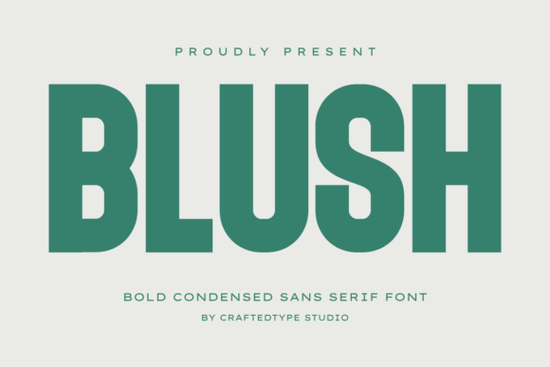
If you work in print on demand, graphic design, or crafting, you already know how much a single typeface can shape the feel of a project. The Blush font is a bold condensed sans serif built for heavy headers, branding, apparel layouts, and social media graphics. It combines tall, narrow geometric letterforms with clean vectors, making it a practical choice for both digital design software and cutting machines like Cricut and Silhouette.
What Makes This Font Stand Out from Other Sans Serifs?
Not all sans serif fonts are created equal. Blush takes a condensed geometric approach that gives every letter a strong vertical presence. Where wider typefaces eat up horizontal space, this one keeps things tight and structured. That makes it especially useful for layouts where you need text to command attention without spreading across the entire canvas.
The letterforms are solid and uniform, with no decorative distractions. This minimalist style works well for modern branding, corporate presentations, and editorial design. If you've explored typefaces like fonts in the Grandeur family for their bold presence, Blush offers a similar authority but in a tighter, more compact frame.
Can You Use It for Print on Demand Products?
Absolutely. One of the biggest strengths of this typeface is how well it translates to POD products. Think about t-shirt designs with bold, stacked text. Hoodies with statement slogans. Mugs with short, punchy phrases. Stickers and posters that need high-impact headers.
Blush was designed with these exact use cases in mind. Its condensed shape means longer words still fit comfortably on standard product templates. And because the vectors are clean and precise, you won't run into rendering issues when uploading to platforms like Redbubble, Merch by Amazon, or Etsy.
If you already use condensed display typefaces for bold designs, adding Blush to your toolkit gives you another strong option for layouts that need vertical emphasis. The Breaking font works well for grungier projects, while Blush keeps things clean and modern.
Does It Work Well with Cricut and Silhouette Machines?
Yes, and this is where many crafters will appreciate it most. Every curve and corner of this typeface has been refined for clean cutting performance. Your Cricut Design Space or Silhouette Studio won't glitch, skip, or produce jagged edges when working with these letterforms.
Crafters who have struggled with overly decorative fonts on cutting machines will notice the difference right away. The geometric structure of each letter means fewer complicated cut paths, which leads to smoother results and less wasted vinyl or cardstock.
For comparison, typefaces like the Homush font family bring a different stylistic direction, but when you need that industrial, no-nonsense look for decals, signs, or layered projects, Blush handles the job cleanly. You can browse Homush if your projects call for a warmer, more rounded aesthetic instead.
Who Should Consider Adding This Font?
This typeface fits a wide range of creative professionals and hobbyists:
- POD sellers designing apparel, mugs, stickers, and posters
- Graphic designers working on logos, branding kits, and social media content
- Small business owners creating promotional banners, packaging, or signage
- Crafters and hobbyists using Cricut or Silhouette for personal projects
- Editorial designers who need bold, condensed headers for magazine or blog layouts
Pairing it with other display options from the sans serif font collection can help you build a versatile design library without spending a fortune. The Things font, for example, offers a complementary style for projects that need a different visual tone.
How Does It Compare to Similar Bold Fonts?
If you're browsing for condensed sans serifs, you'll likely come across a few alternatives. Typefaces like Grandeur lean into a more decorative aesthetic, while Blush sits in a practical middle ground. It's bold enough to be noticed but restrained enough to work in professional settings. That balance is what makes it useful across so many different project types.
Tip: Before committing to a final design, set a few sample headlines in Blush alongside your body text font. The condensed proportions work best when balanced with a more open, readable typeface at smaller sizes.